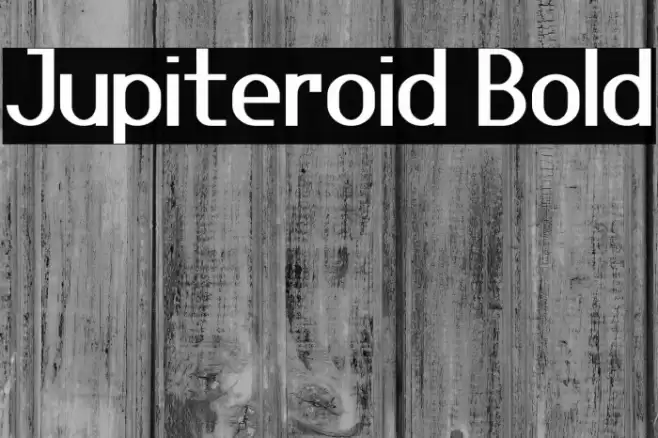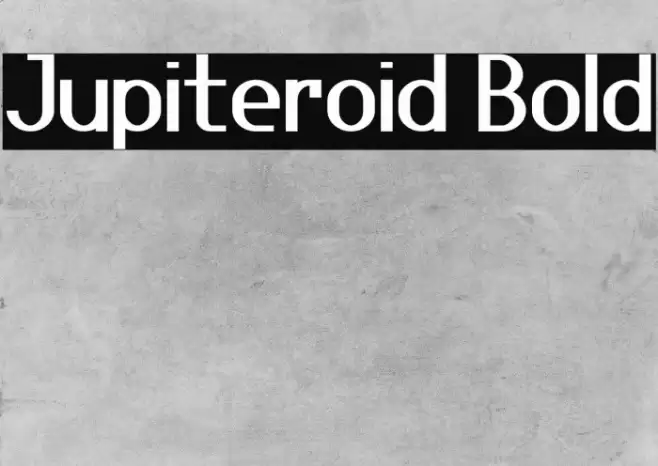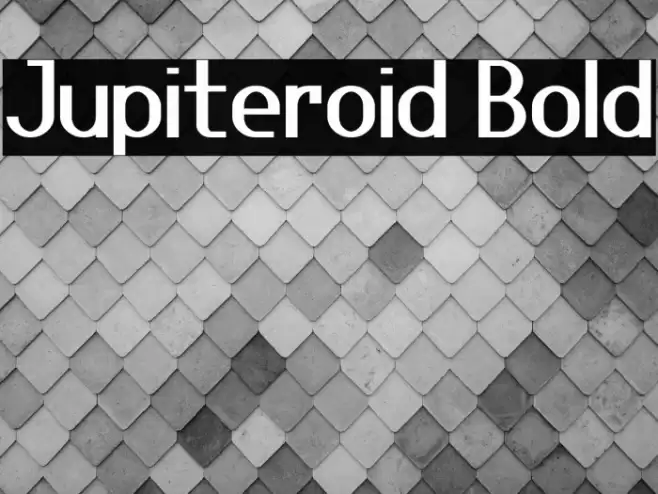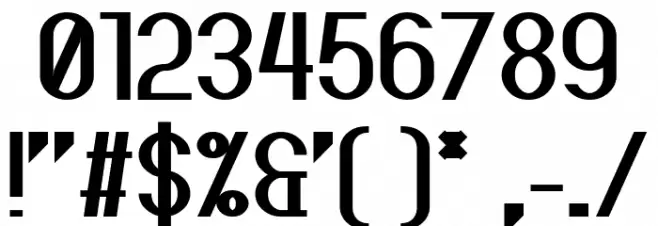
Jupiteroid Bold Font
Jupiteroid Bold Description
This font features a bold and modern sans-serif style with clean lines and a geometric structure. The uppercase letters are tall and commanding, while the lowercase letters maintain a consistent height, providing a balanced and cohesive look. The numerals are clear and easily readable, making them suitable for various applications. Special characters are distinct and well-integrated into the overall design. The font's bold weight and normal width make it versatile for both digital and print media, offering a contemporary aesthetic that is both professional and approachable.
A bold, modern sans-serif font with geometric structure and clean lines from Basic fonts.
- Proposed Projects: Ideal for branding, advertising, headlines, posters, and digital media.